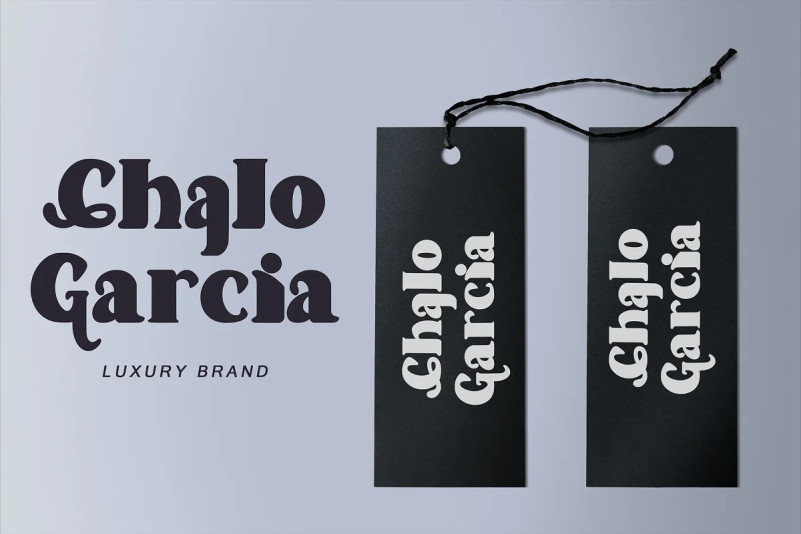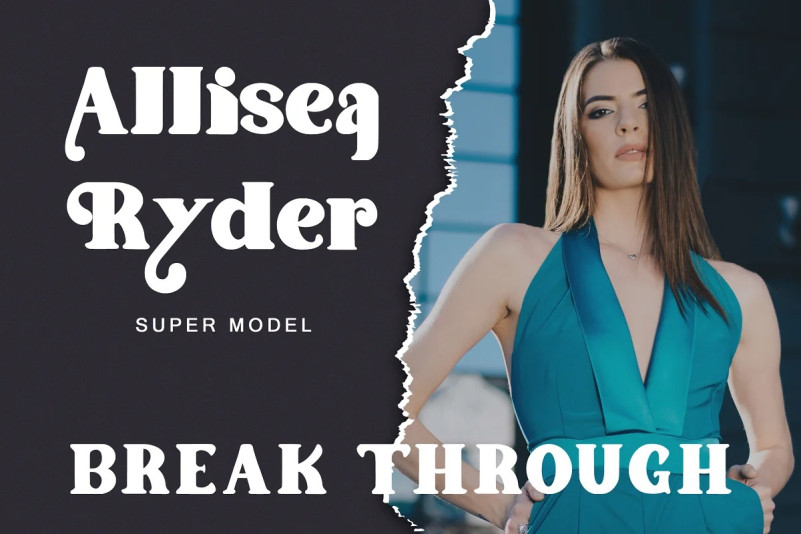
Luxurious Gallery Font
Luxurious Gallery – Retro Display Font is a font with distinctive handwritten characters perfect for branding projects, logos, wedding designs, media posts, advertisements, product packaging, product designs, labels, photography, watermarks, invitations, stationery, and any project who need handwritten dishes.